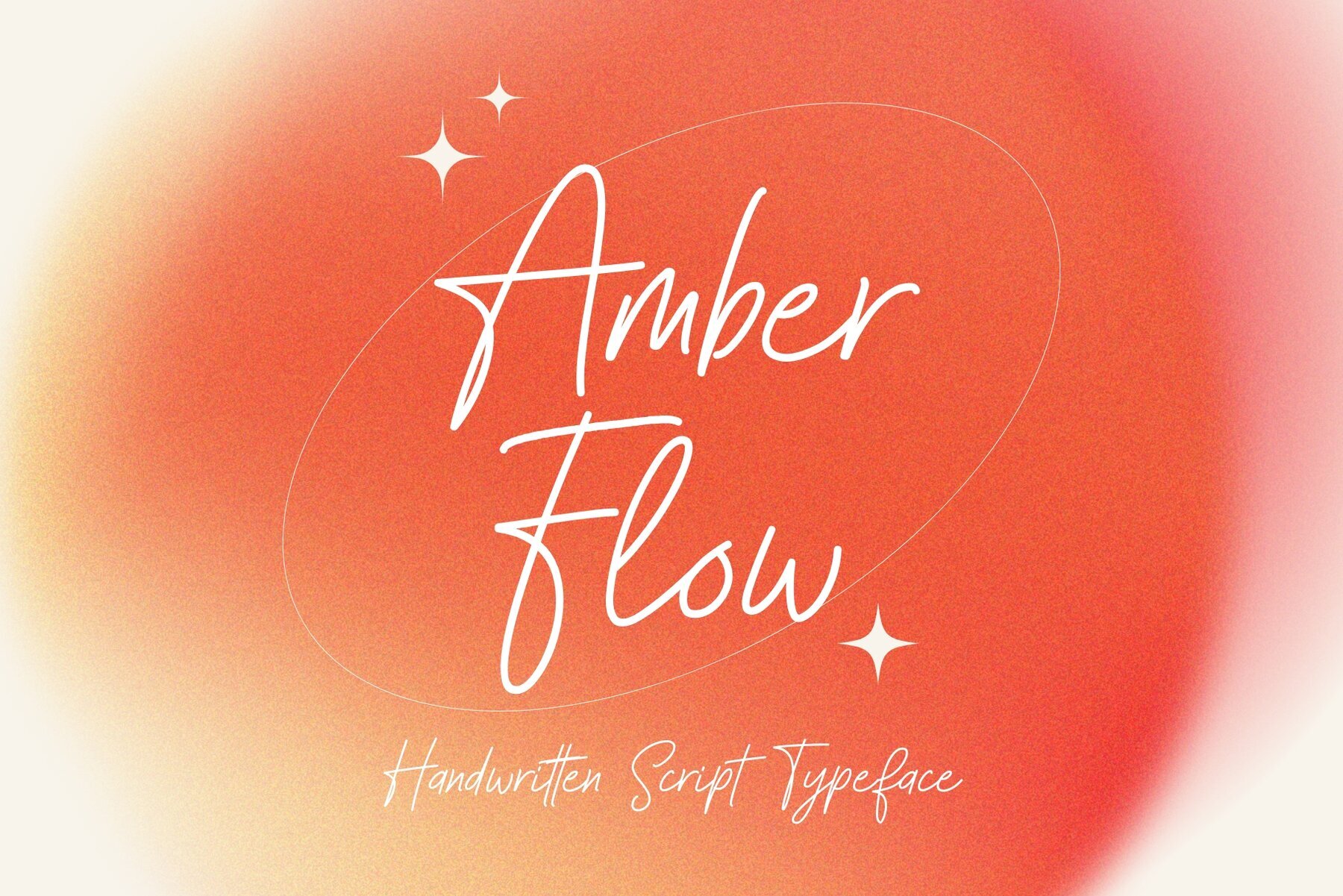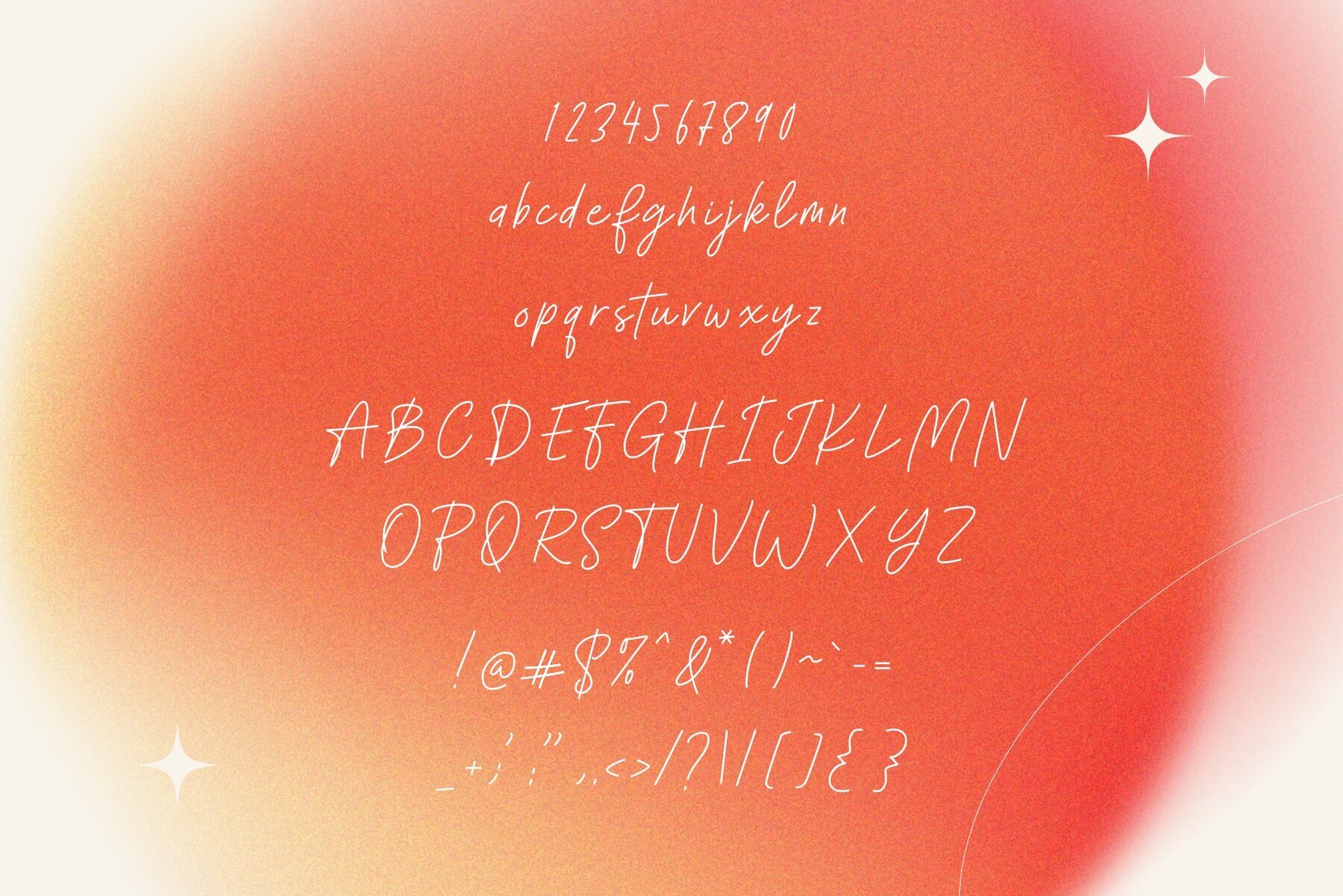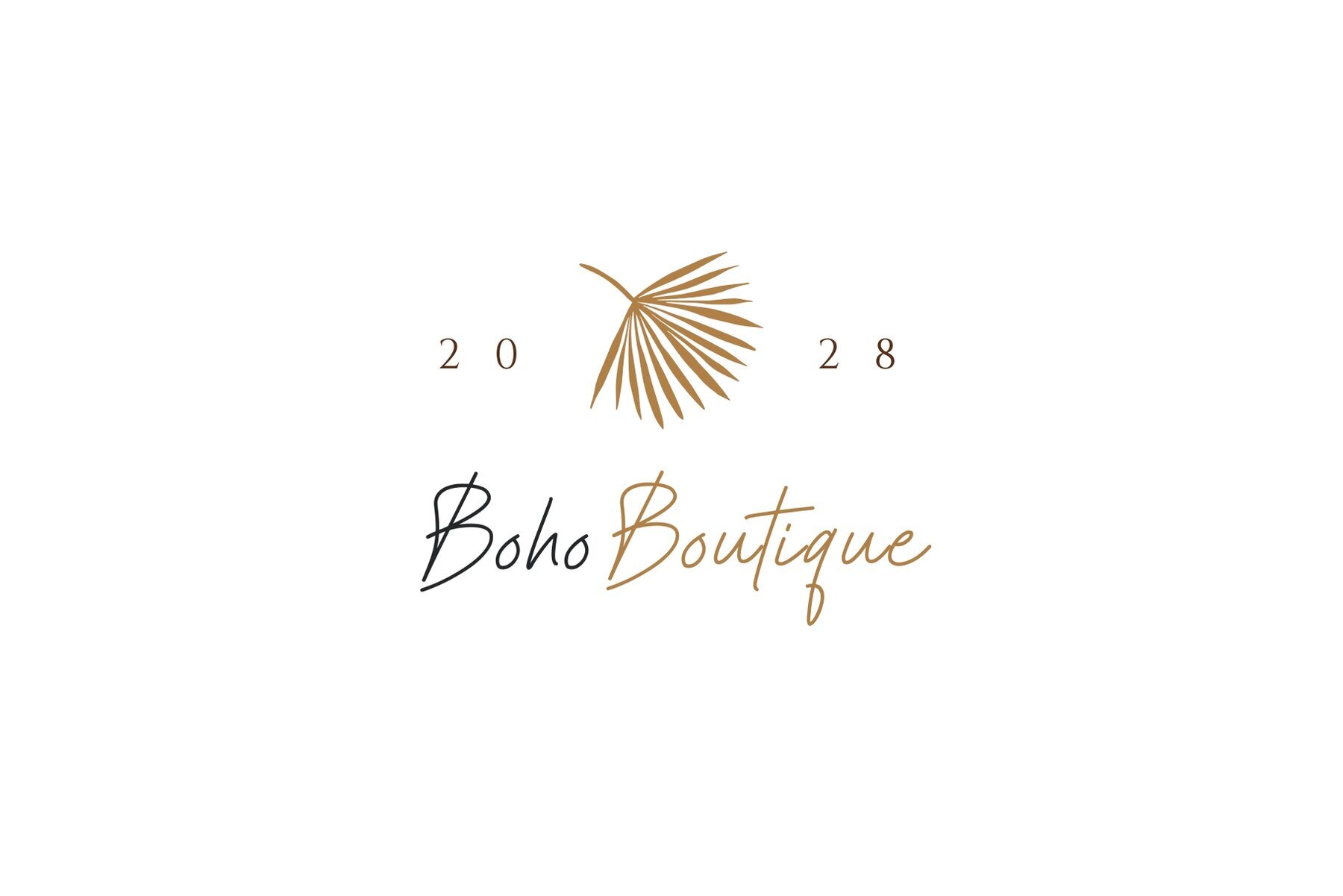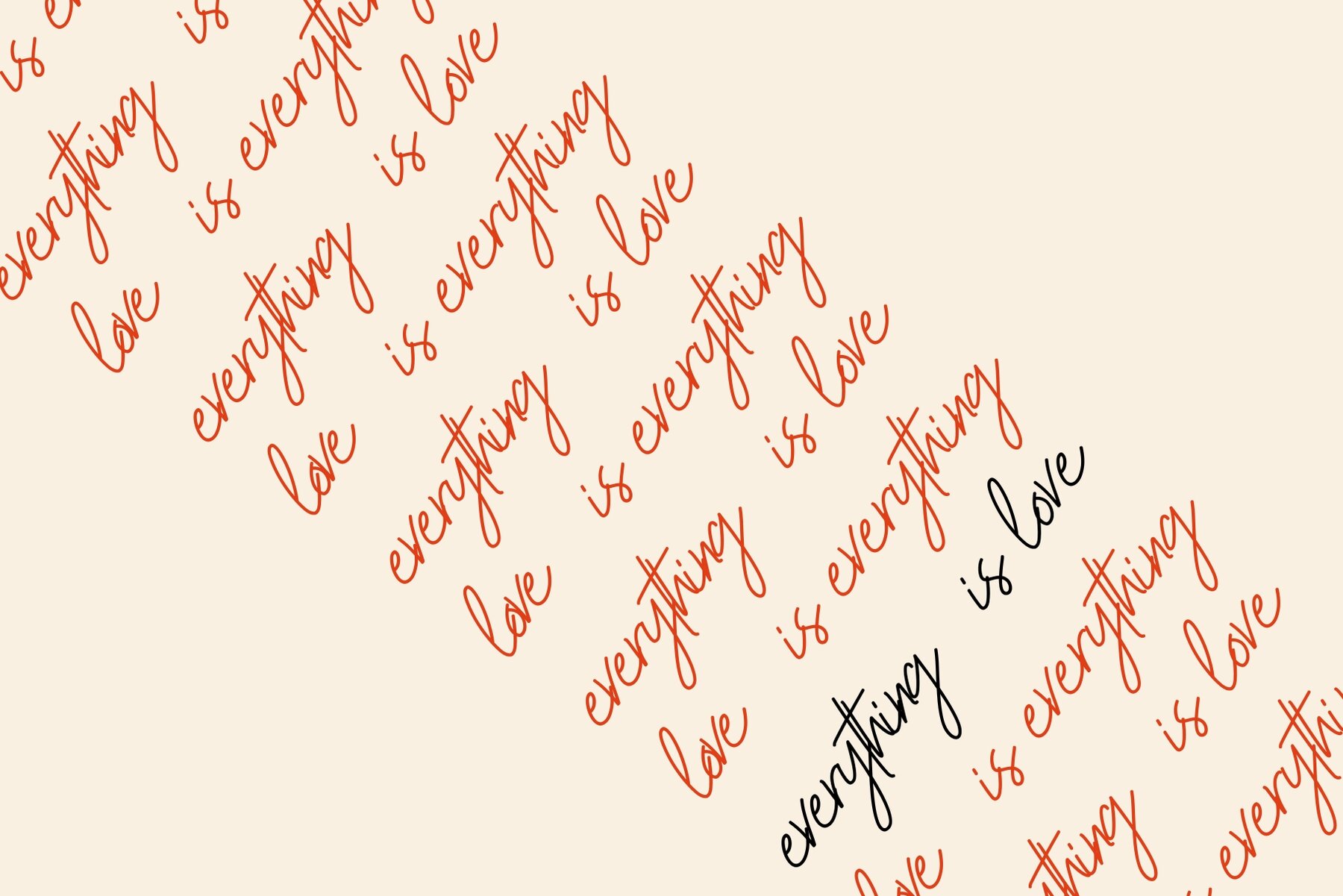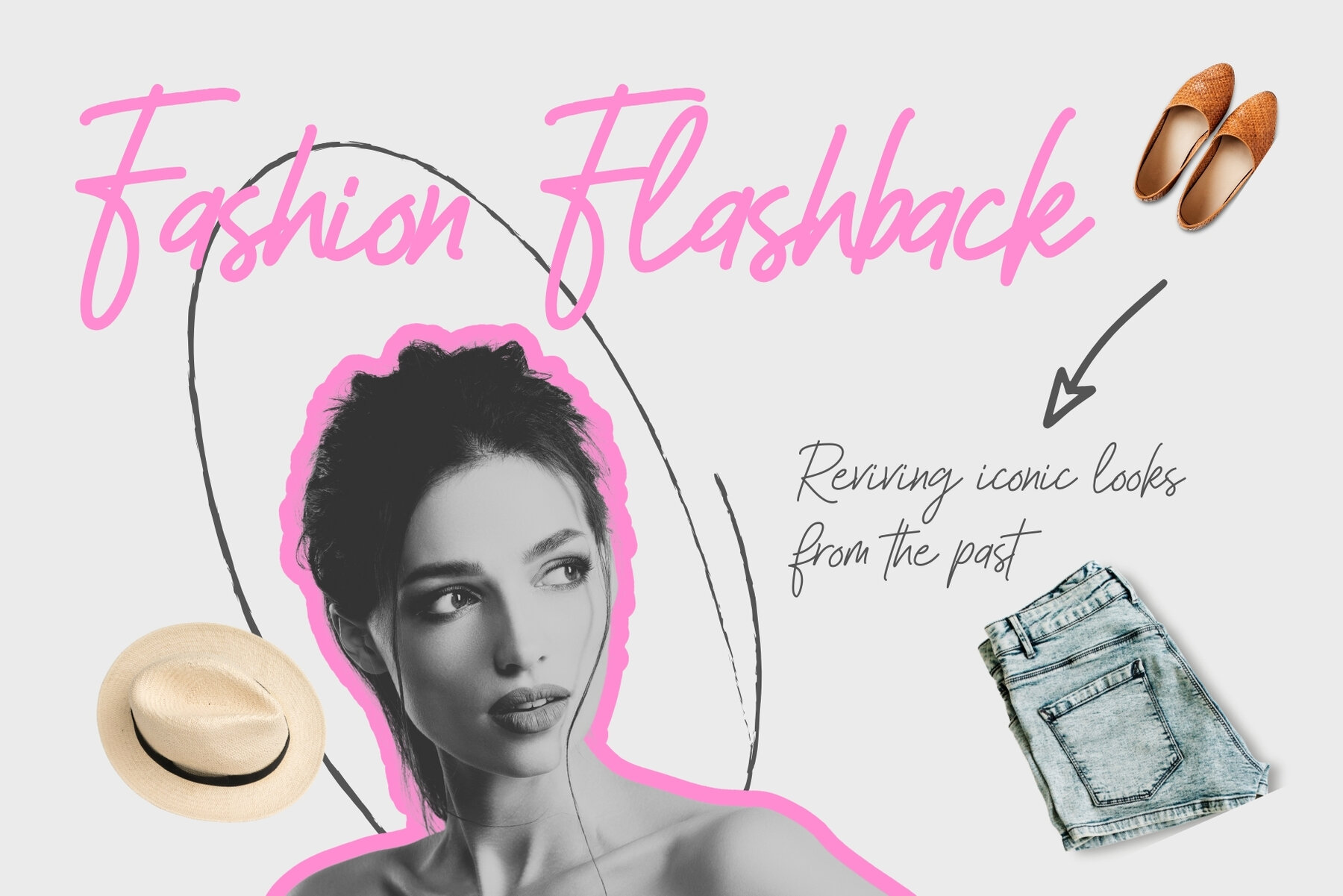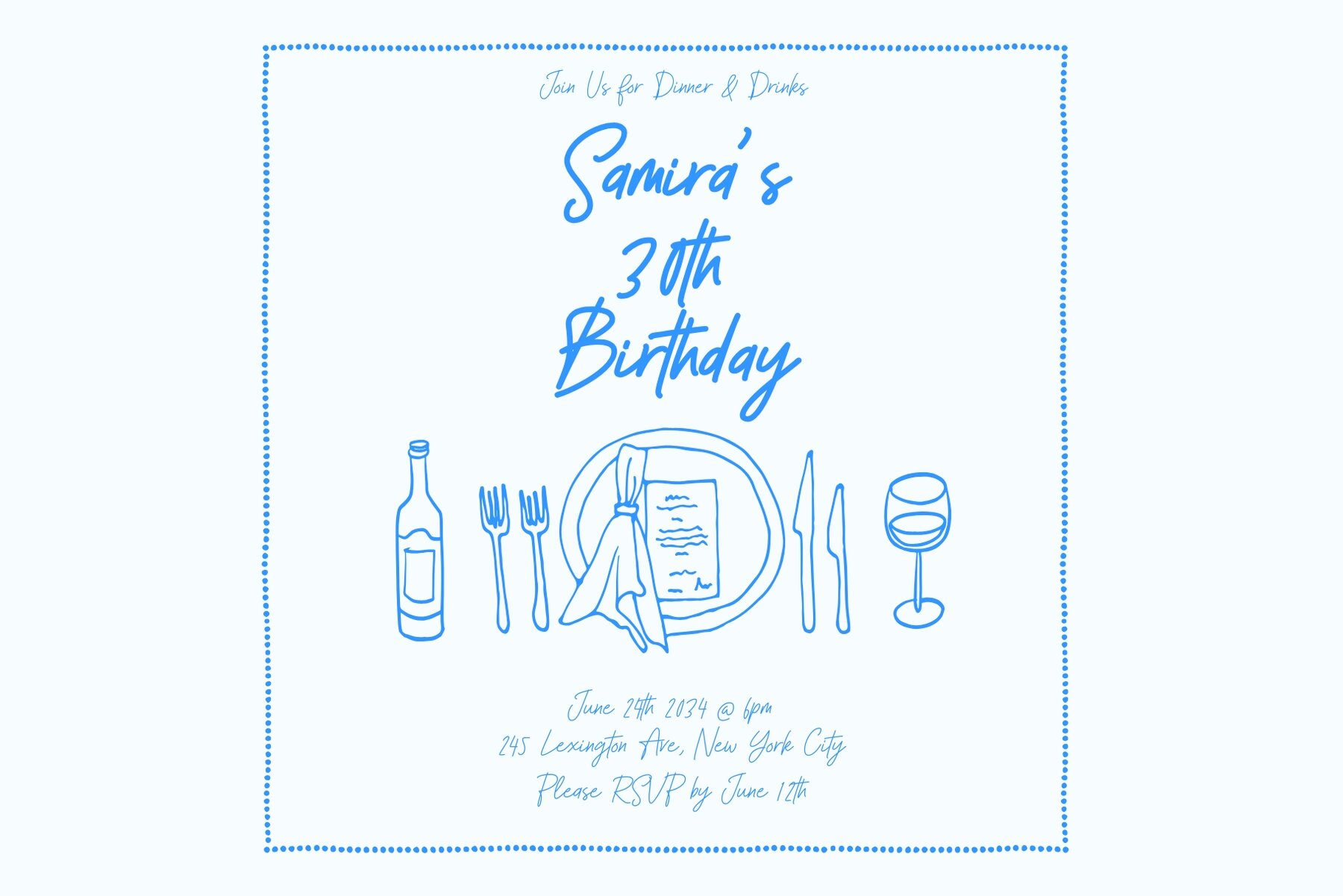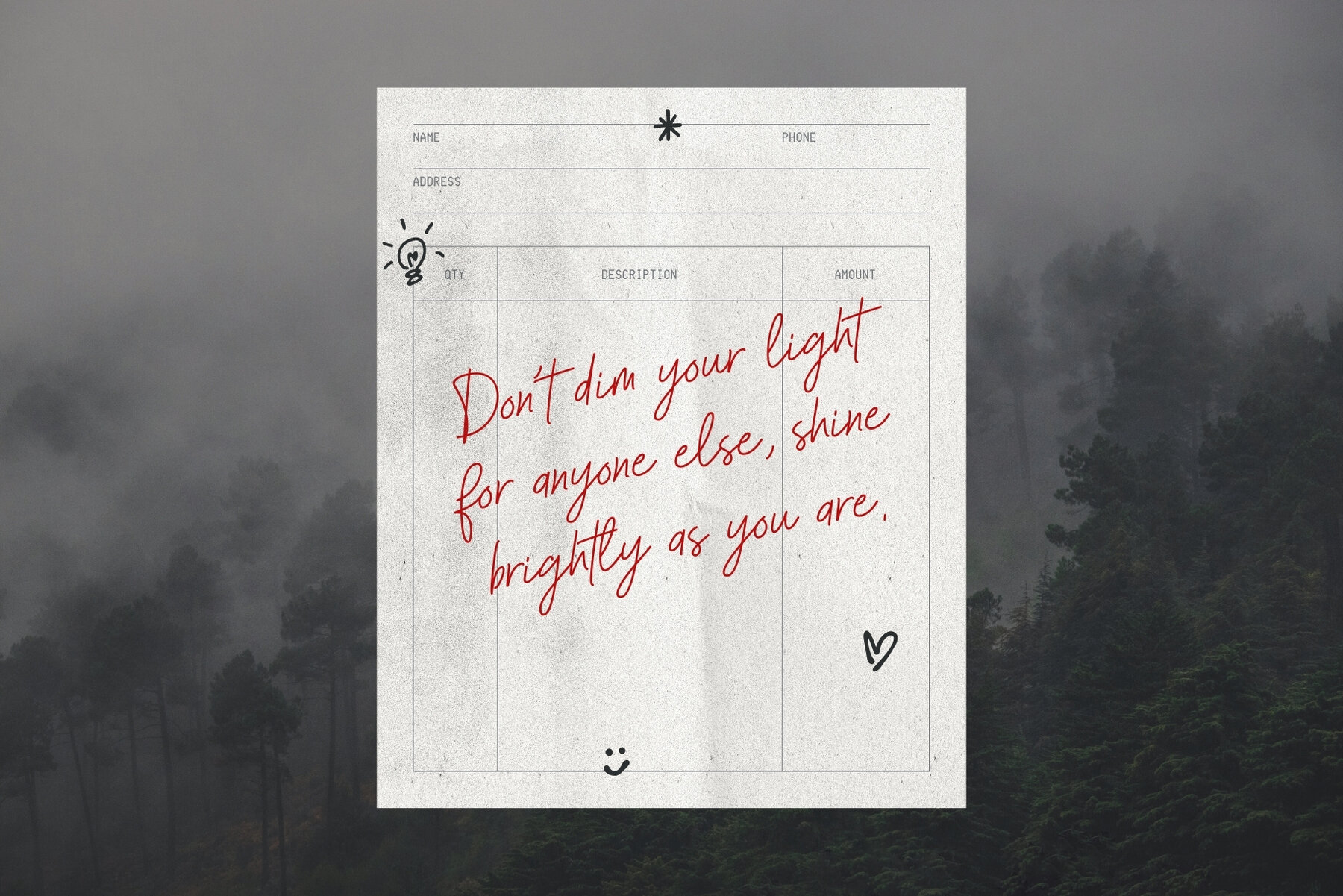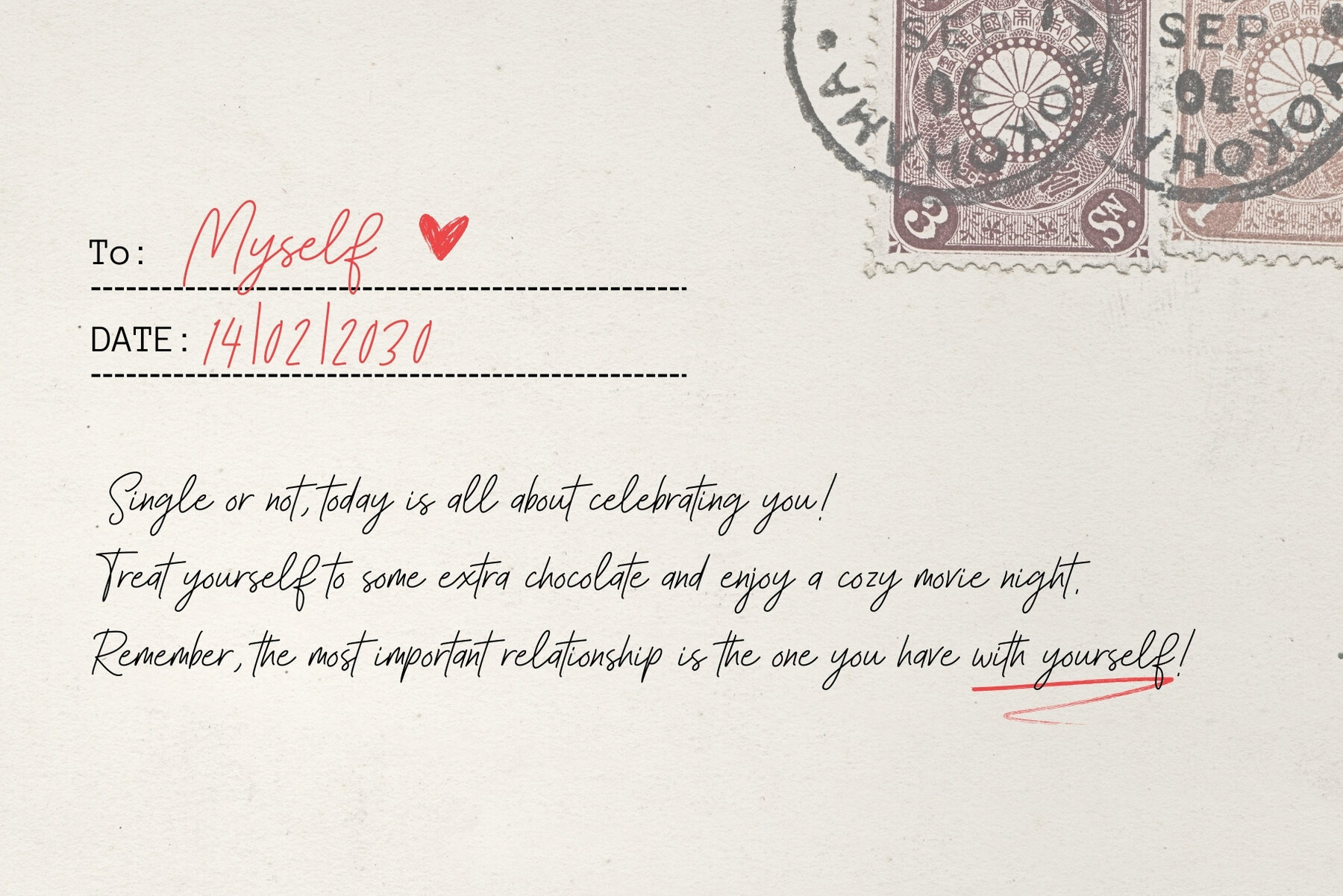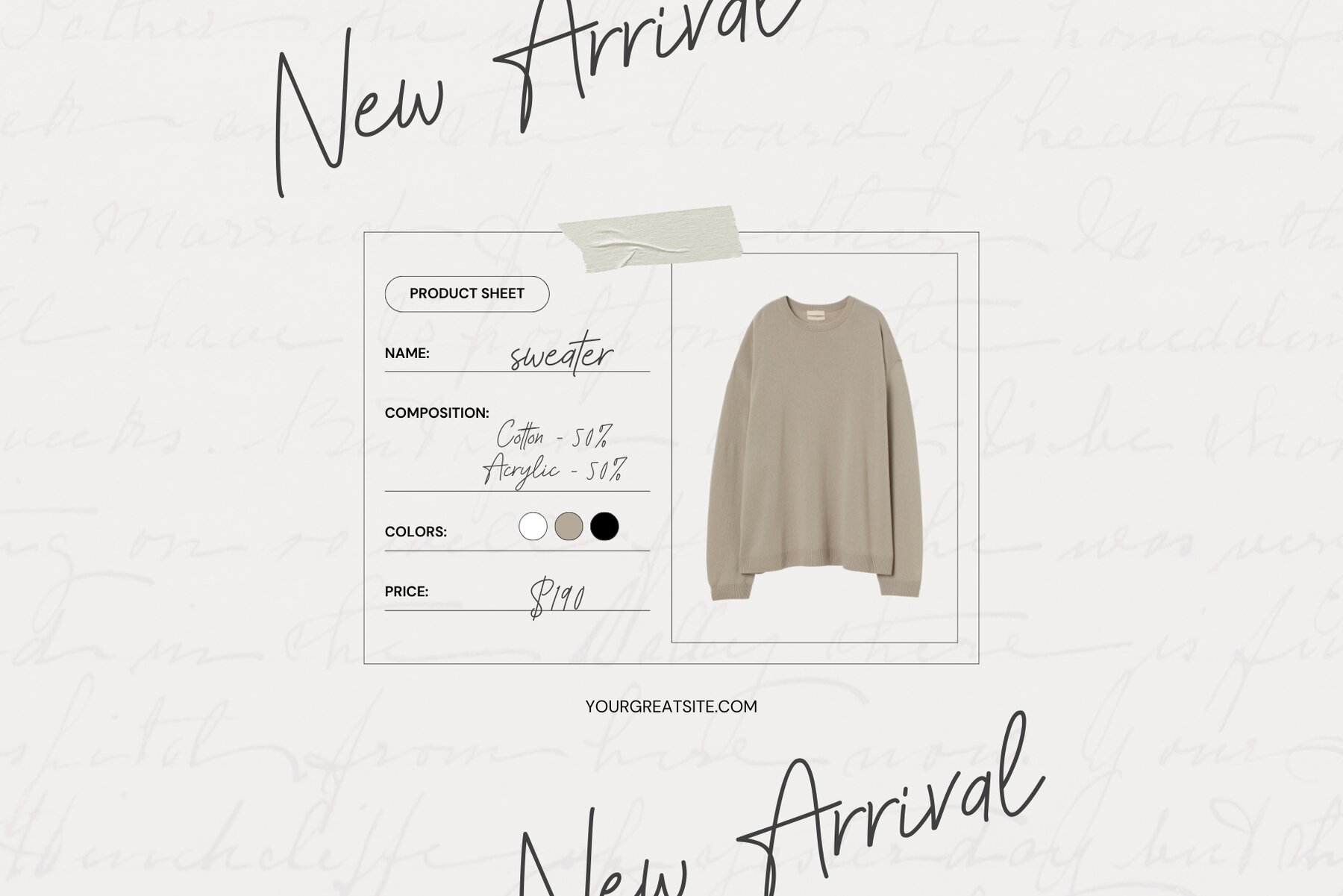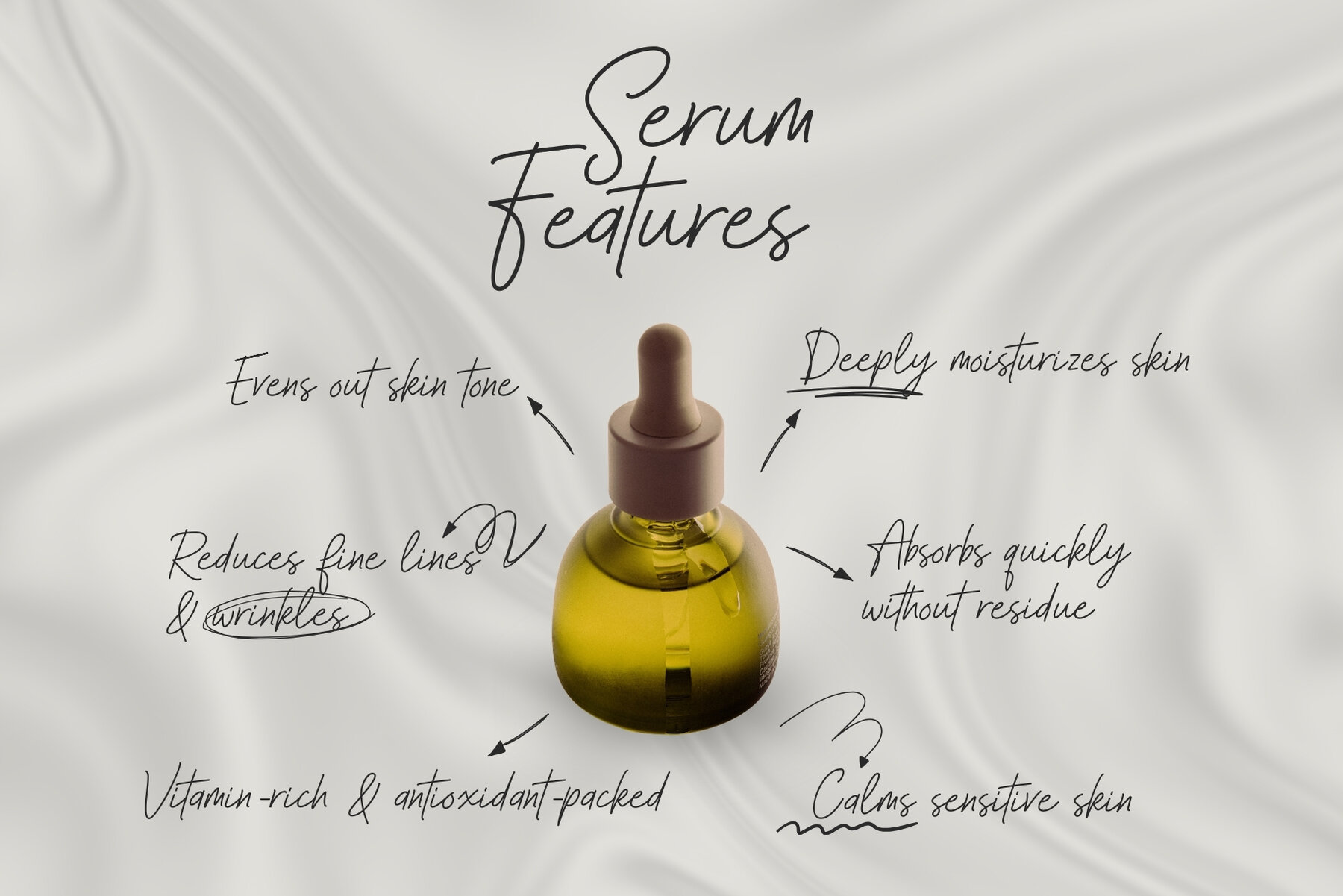
Amber Flow Font
Amber Flow Regular
Experience unparalleled grace and style with Amber Flow, a captivating handwritten script typeface that breathes sophistication into any project. This typeface, with its sleek curves and fluid strokes, exudes charm and modern elegance, making it a perfect choice for those looking to add a touch of luxury or romance to their designs. Amber Flow is crafted with precision to ensure each character flows seamlessly, elevating your typography to new heights. Embrace the effortless beauty and sophistication of Amber Flow, and let your words leave a lasting impression.Amber Flow Typeface